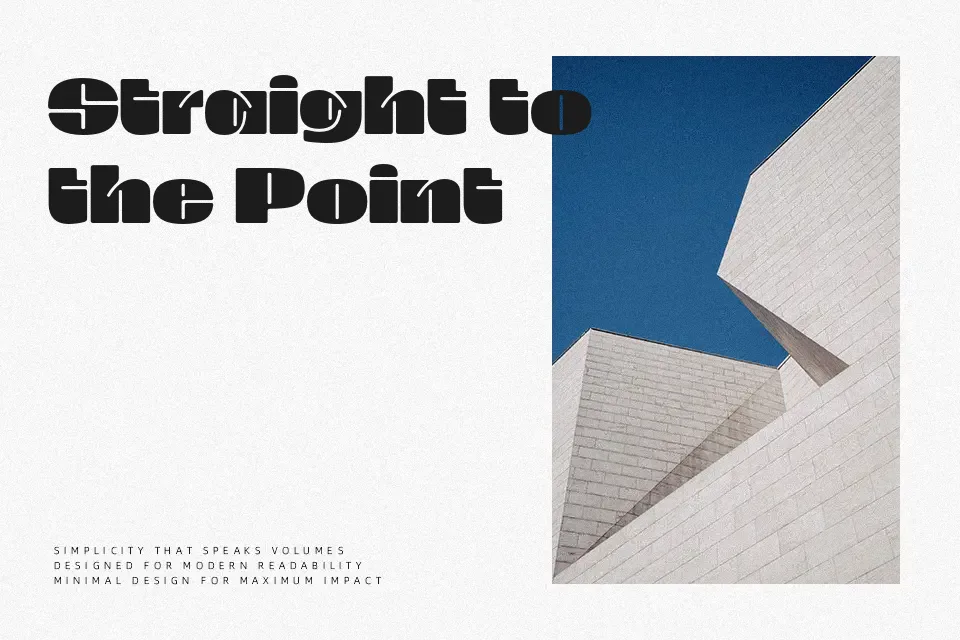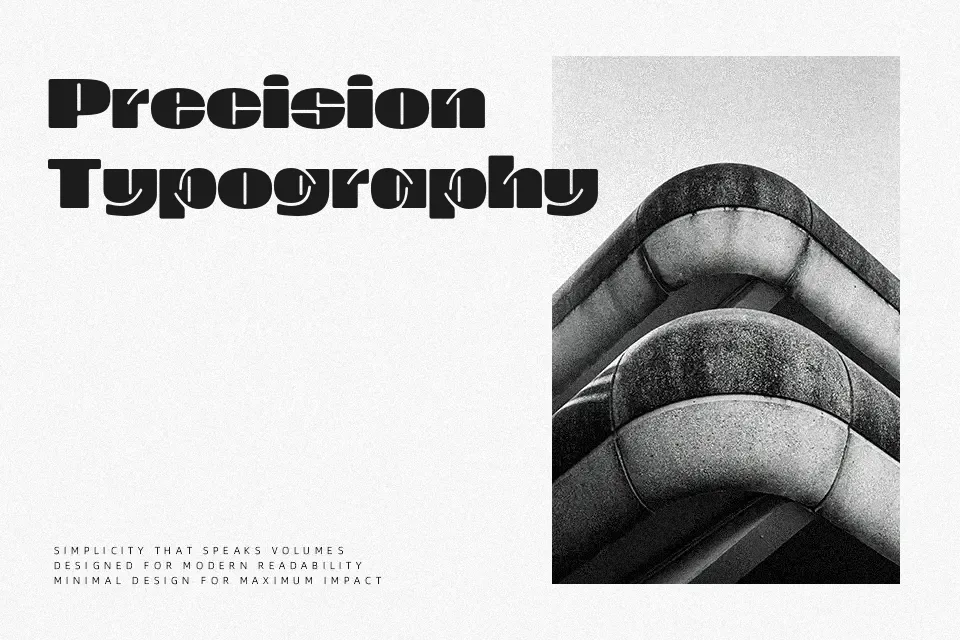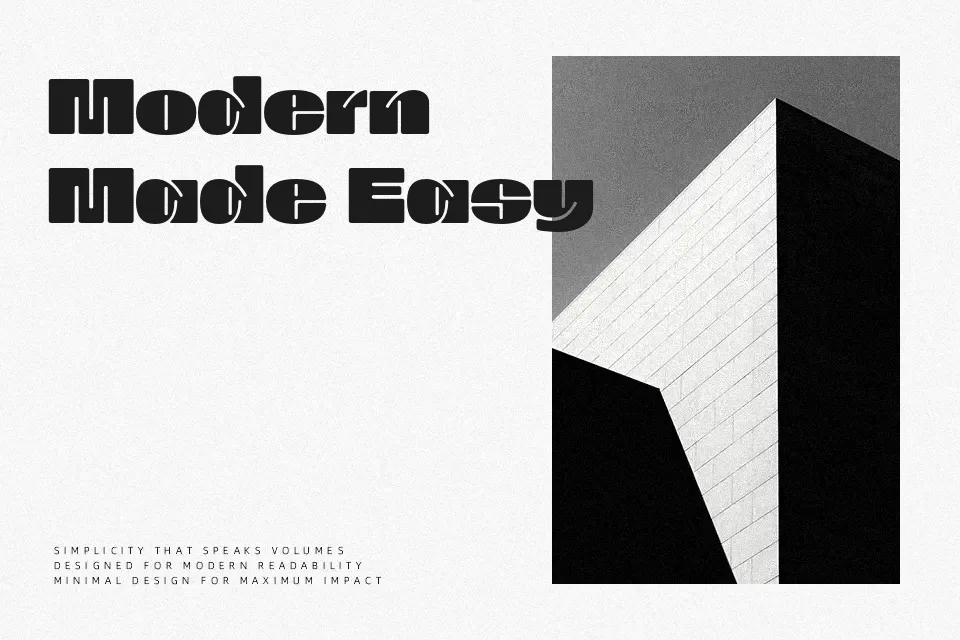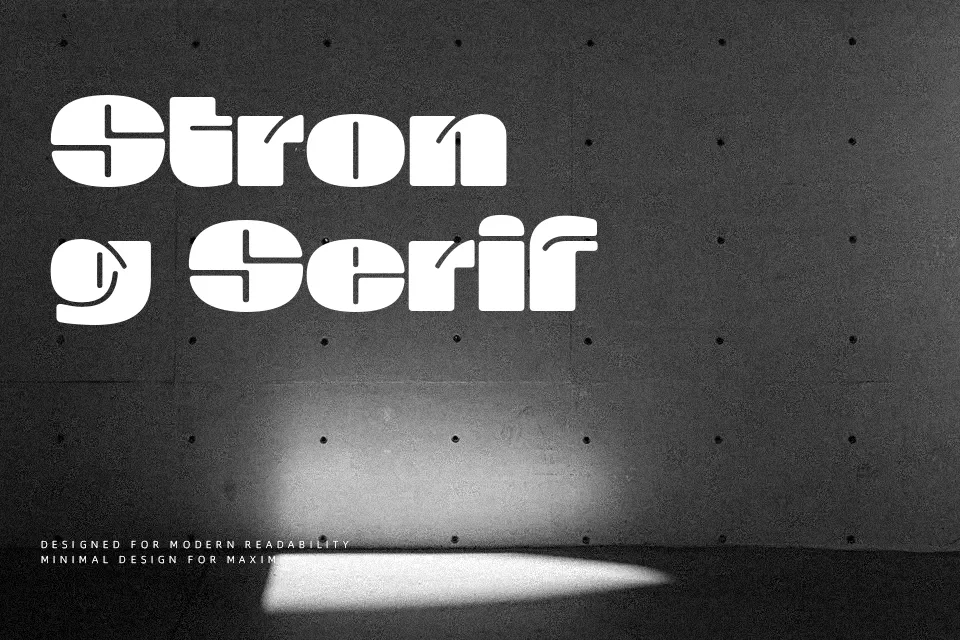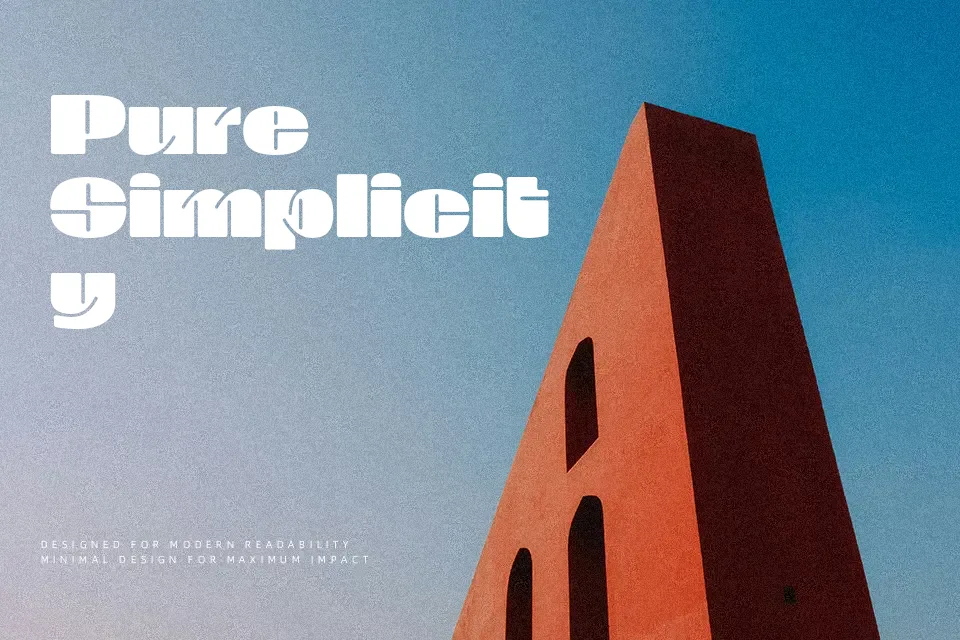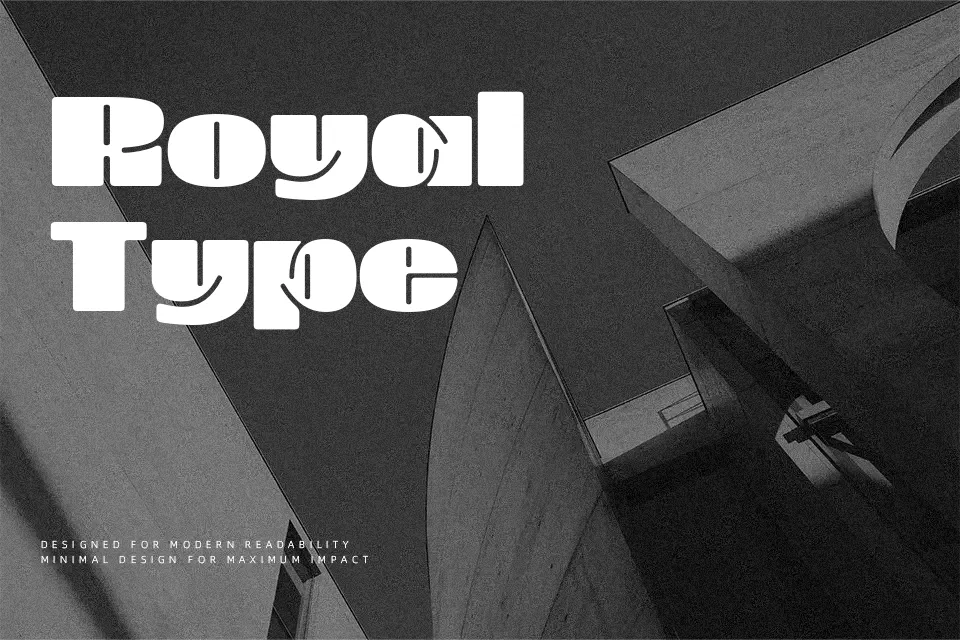
Chumb Font
Chumb Font showcases a heavyweight sans serif architecture defined by solid, uniform strokes, reduced interior counters, and sharp inktrap incisions. The design maintains tight horizontal spacing and robust vertical proportions, producing a dense visual rhythm that emphasizes mass and presence. At display scales, the letterforms remain legible across short headlines, album covers, and event signage, delivering substantial optical weight. However, the compact apertures and heavy mass significantly impair readability when scaled down to small captions or body copy. Extended reading environments also suffer from visual fatigue due to the minimal negative space within the glyphs.
poster headlines,album cover art,streetwear apparel,product packaging
long body text,mobile UI captions,editorial paragraphs,technical documentation